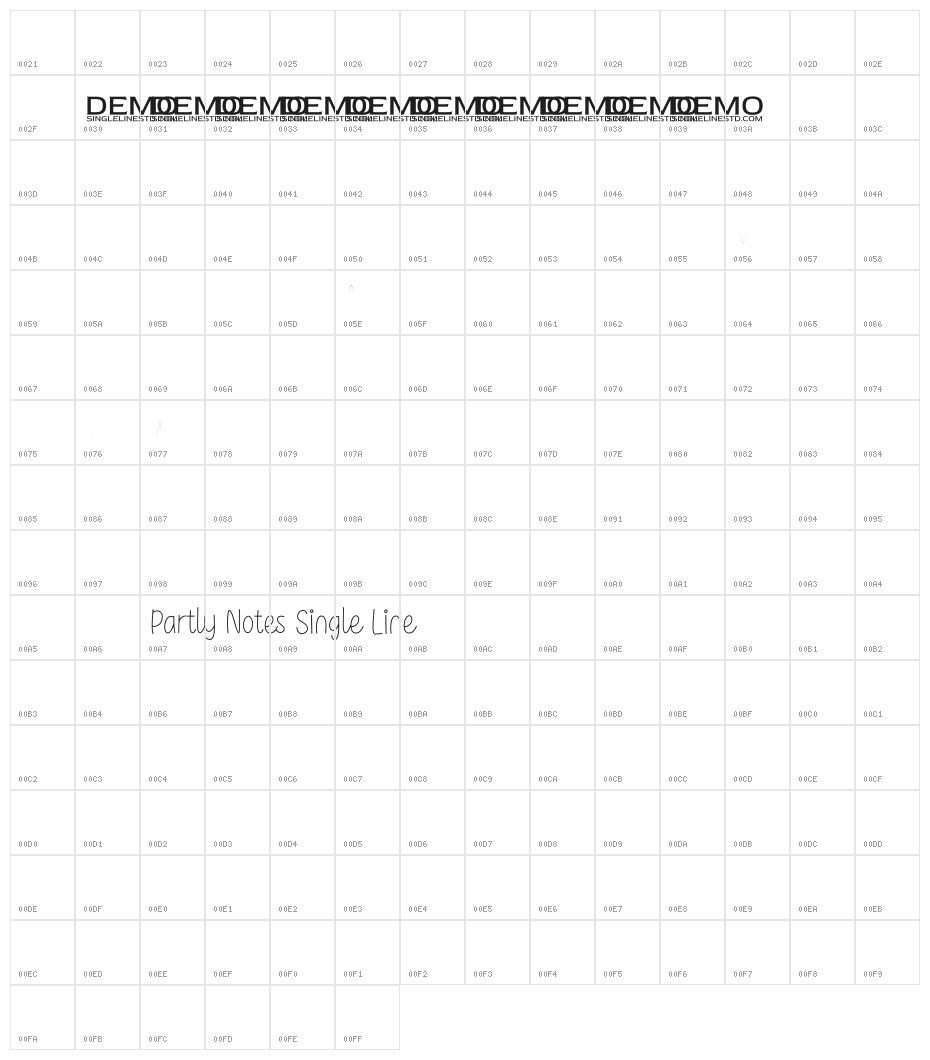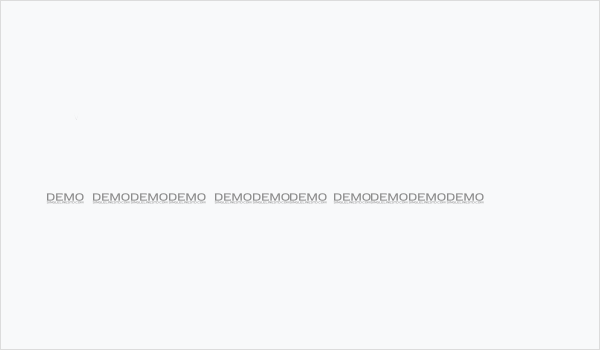
Partly Notes Single Line Font
Partly Notes Single Line Description
A modern, sans-serif font with clean lines and a minimalist design.
| Proposed Projects | Suitable for headlines, logos, and modern branding. |